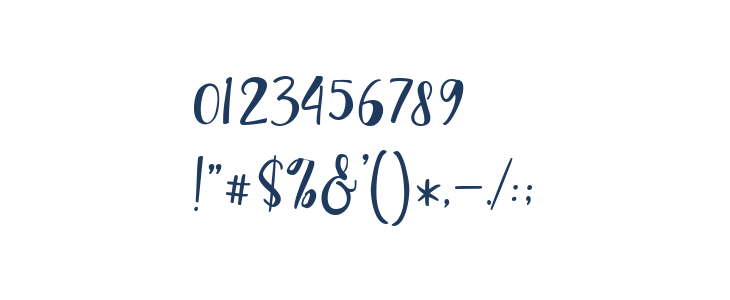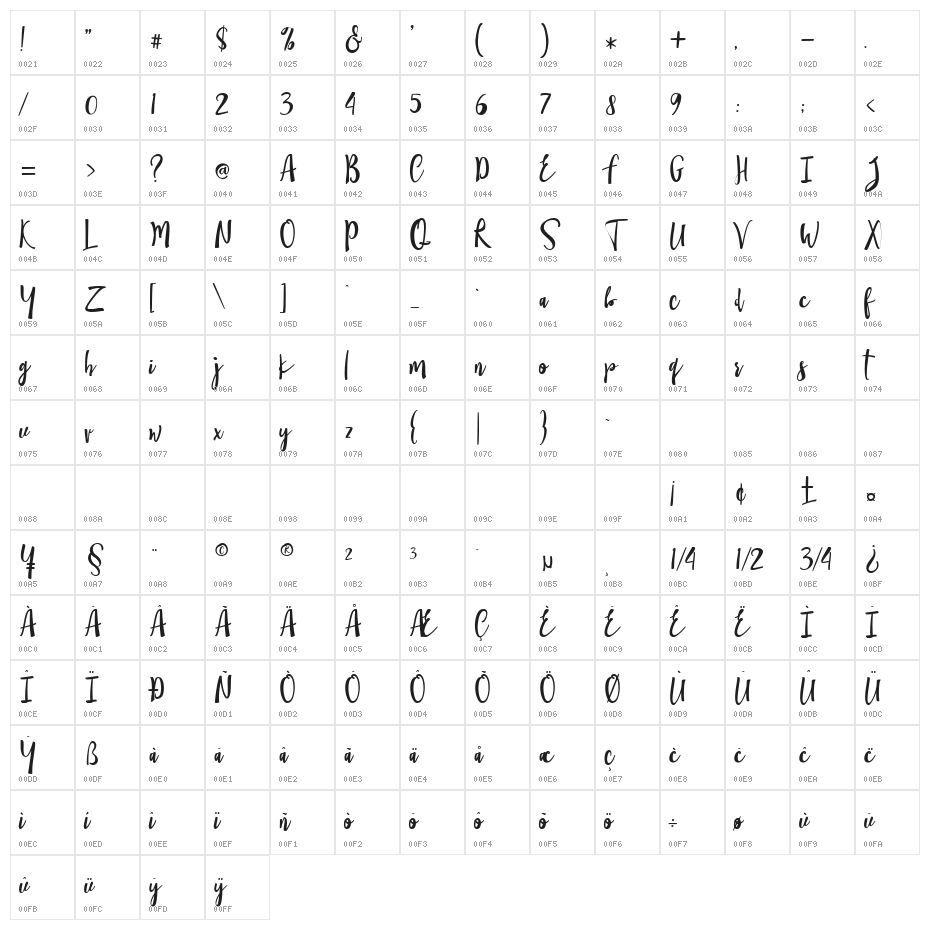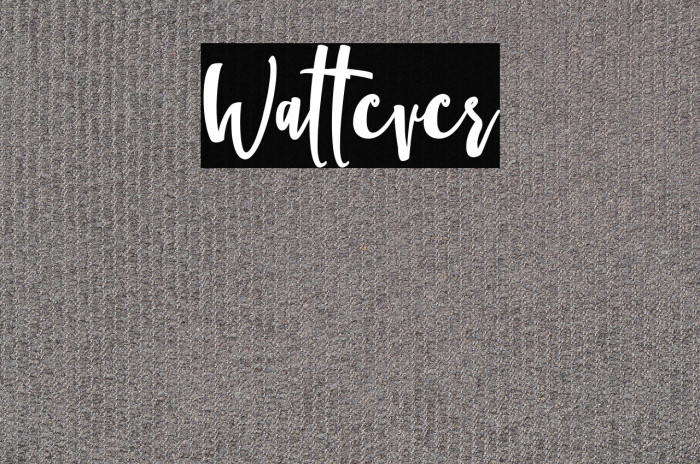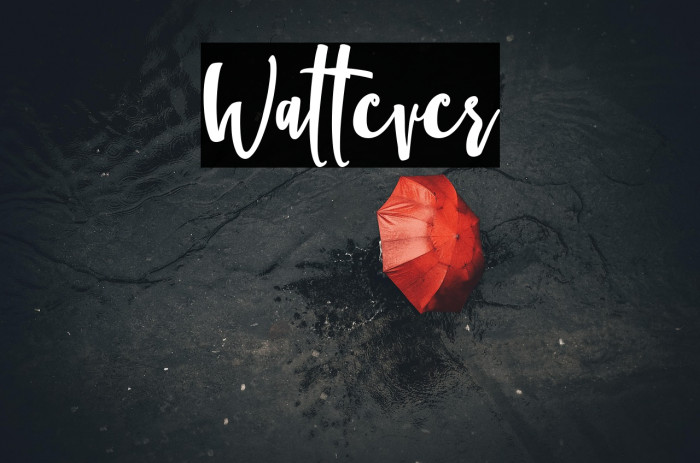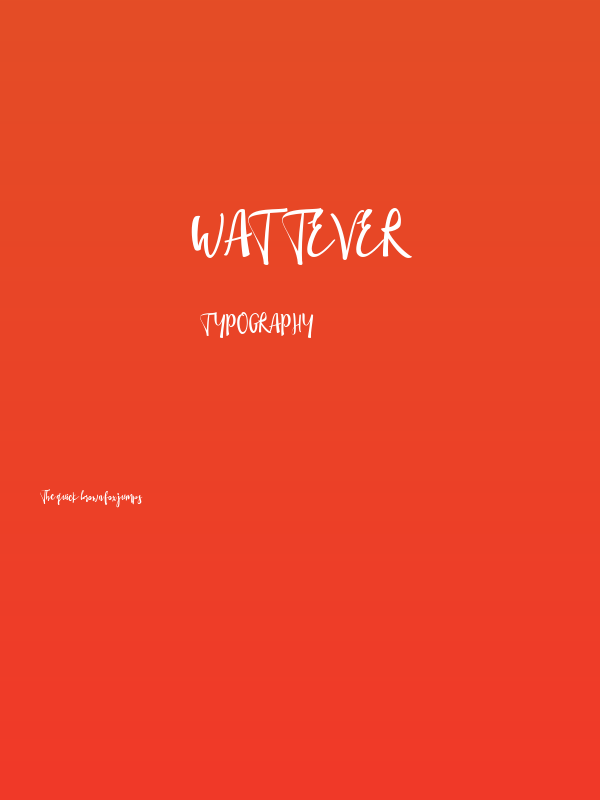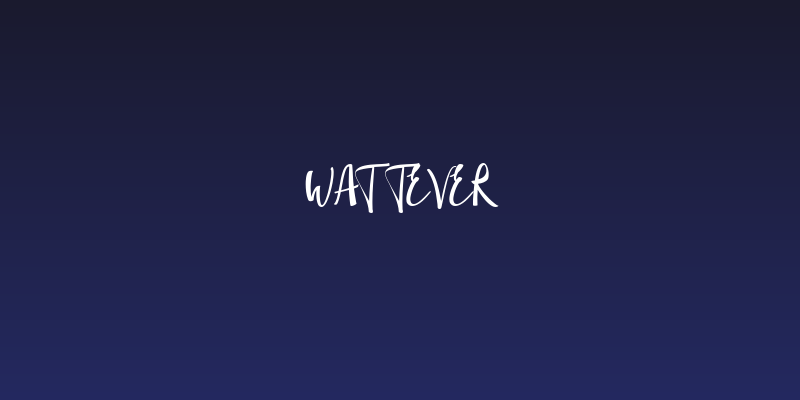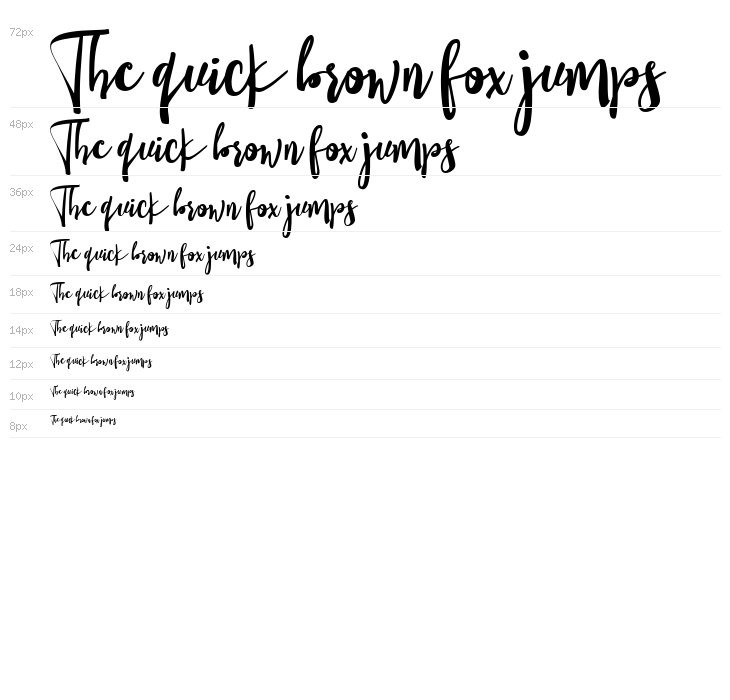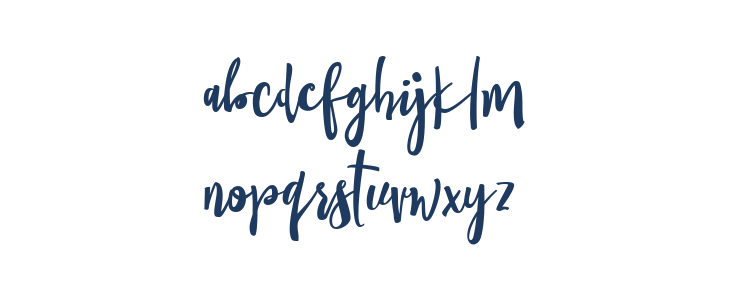
Wattever Font
Wattever Description
This font exudes a playful and energetic vibe with its bold, handwritten style. The letters are characterized by their fluid, sweeping strokes and varying thickness, giving it a dynamic and lively appearance. The uppercase letters are tall and slightly narrow, while the lowercase letters maintain a consistent flow with a slightly more compact form. The numerals are distinct and maintain the same playful style, ensuring readability. Special characters are creatively integrated, maintaining the overall aesthetic. This font is perfect for projects that require a personal touch, such as invitations, greeting cards, or branding materials that aim to convey warmth and approachability.
| Use Case | Logos, Headlines, Invitations |
| Proposed Projects | Ideal for invitations, greeting cards, branding, and any project needing a personal, energetic touch. |